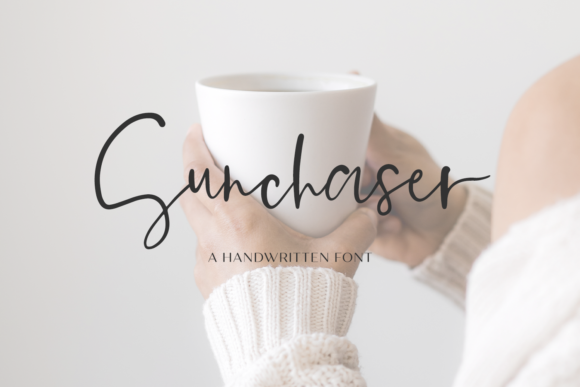
Journey into a world of sophistication and charm, where words dance with grace and elegance. Introducing Sunchaser Script Font, the ultimate symphony of flowing lines and captivating curves, designed to elevate your e-commerce website to new heights of visual artistry.
Savor the allure of this enchanting script font, delicately crafted to mirror the beauty of handwritten notes, each letter imbued with a touch of individuality and warmth. Its graceful strokes, reminiscent of a gentle summer breeze, bring a sense of movement and fluidity to your designs, drawing the eyes of your visitors like a magnet.
Immerse yourself in the boundless versatility of Sunchaser Script. Its diverse range of applications knows no limits, from eye-catching logos and branding elements to captivating social media posts and stunning website designs. Whether you seek to create an unforgettable first impression or leave a lasting impact, Sunchaser Script stands as your steadfast companion, transforming ordinary text into captivating works of art.
Unleash the boundless potential of this font, and watch as your e-commerce website blossoms into a haven of elegance and sophistication. Allow your products to bask in the spotlight, adorned with Sunchaser Script's refined charm, as they captivate and allure your customers, leading them on a journey of visual delight.
Experience the transformative power of Sunchaser Script, and elevate your e-commerce venture to the forefront of style and innovation. Embrace the beauty of handwritten artistry, and let your brand shine brighter than ever before.